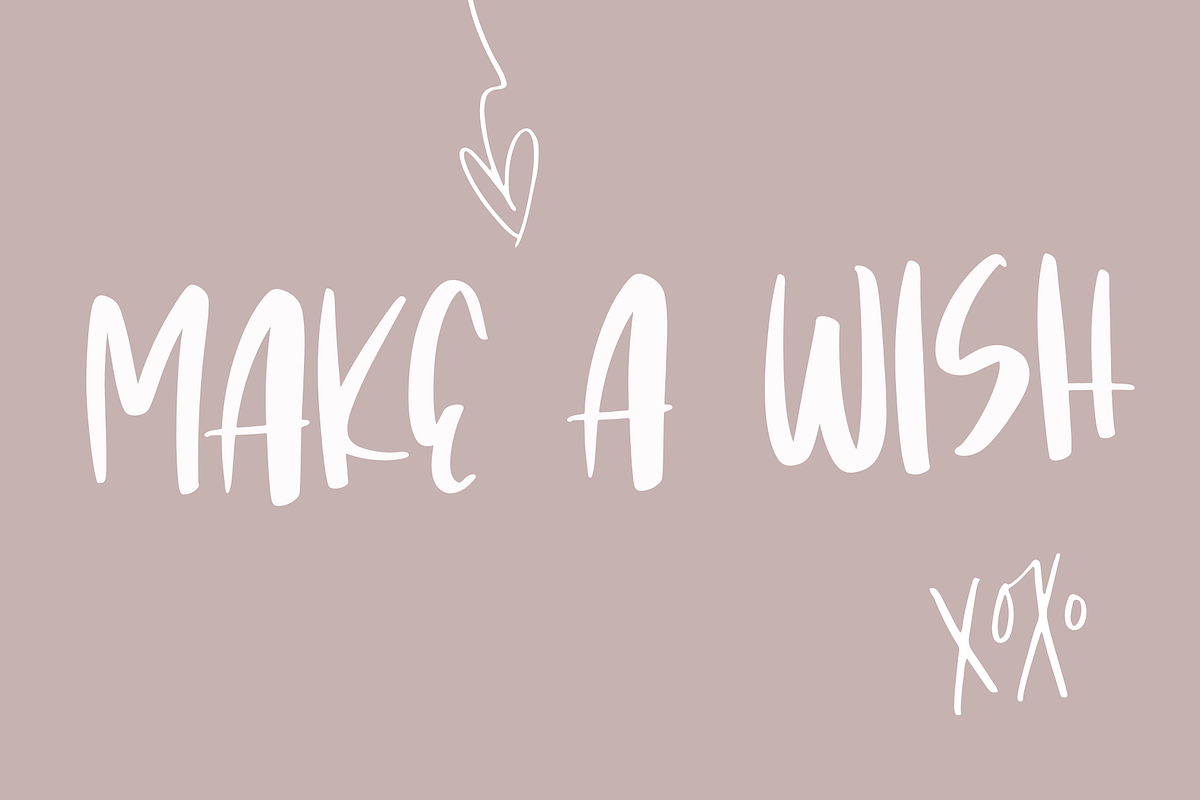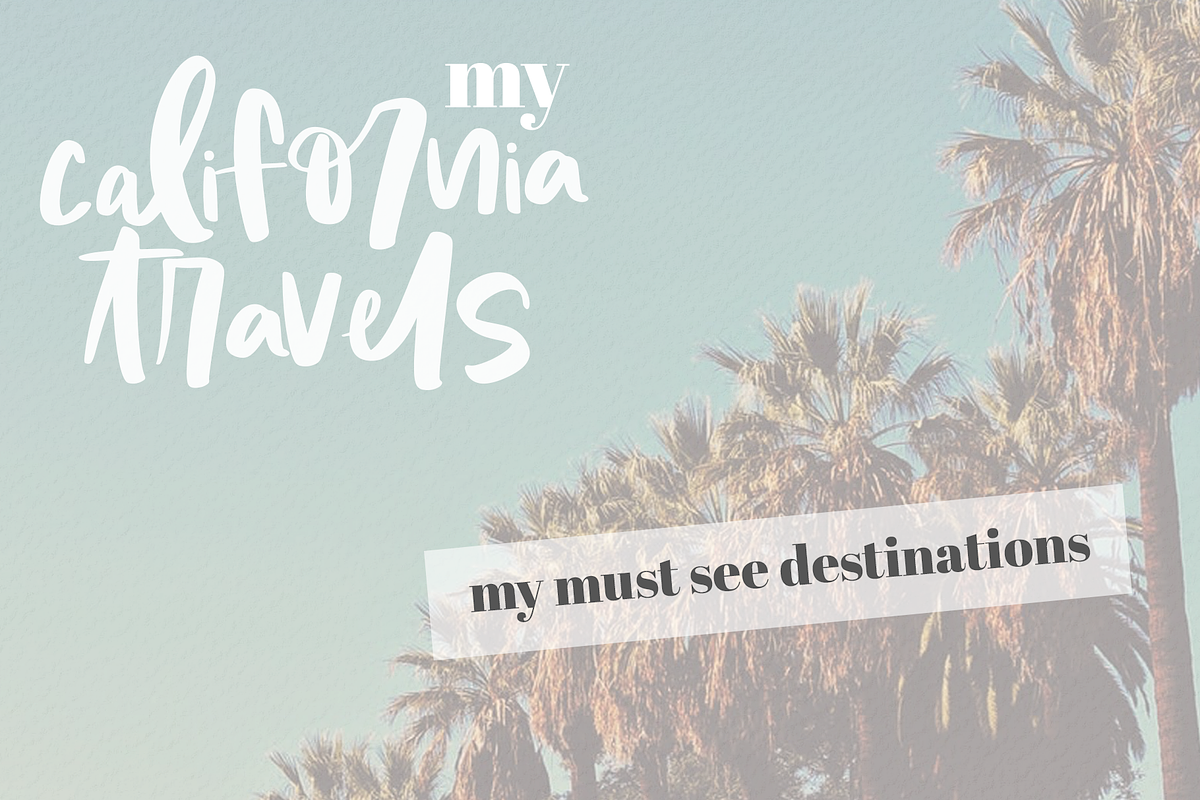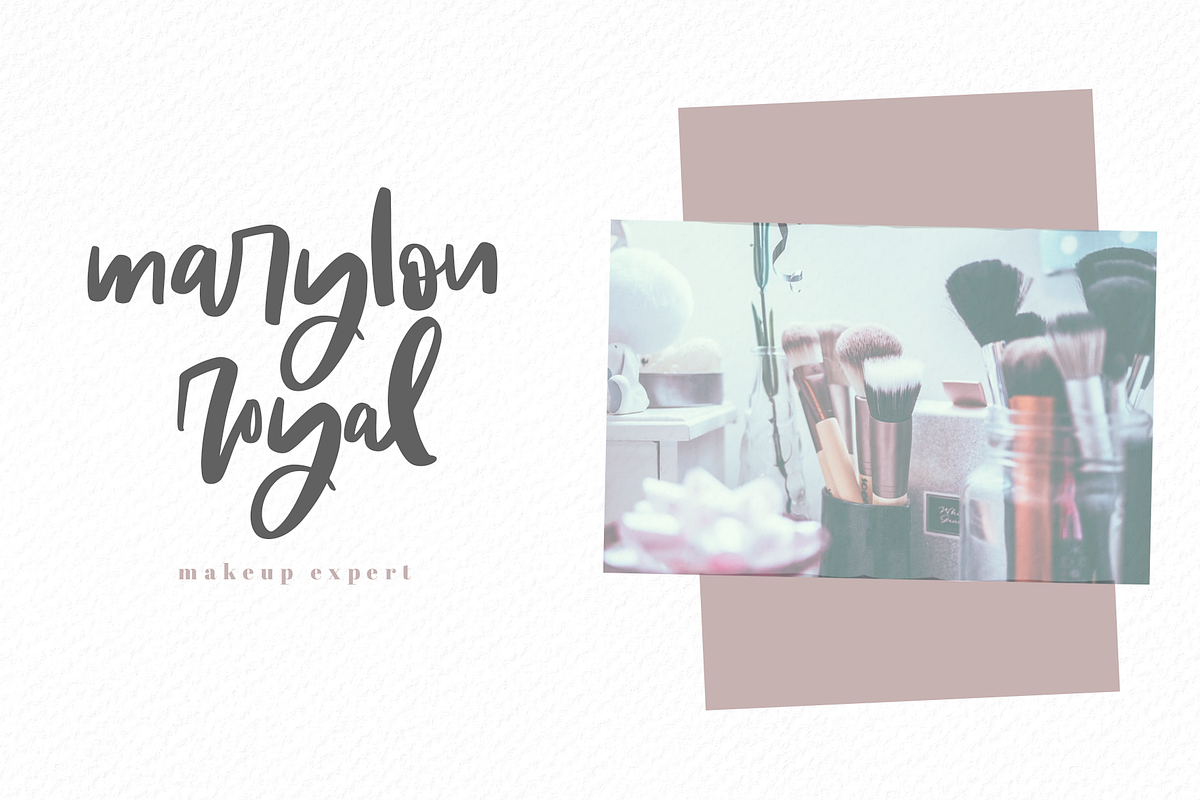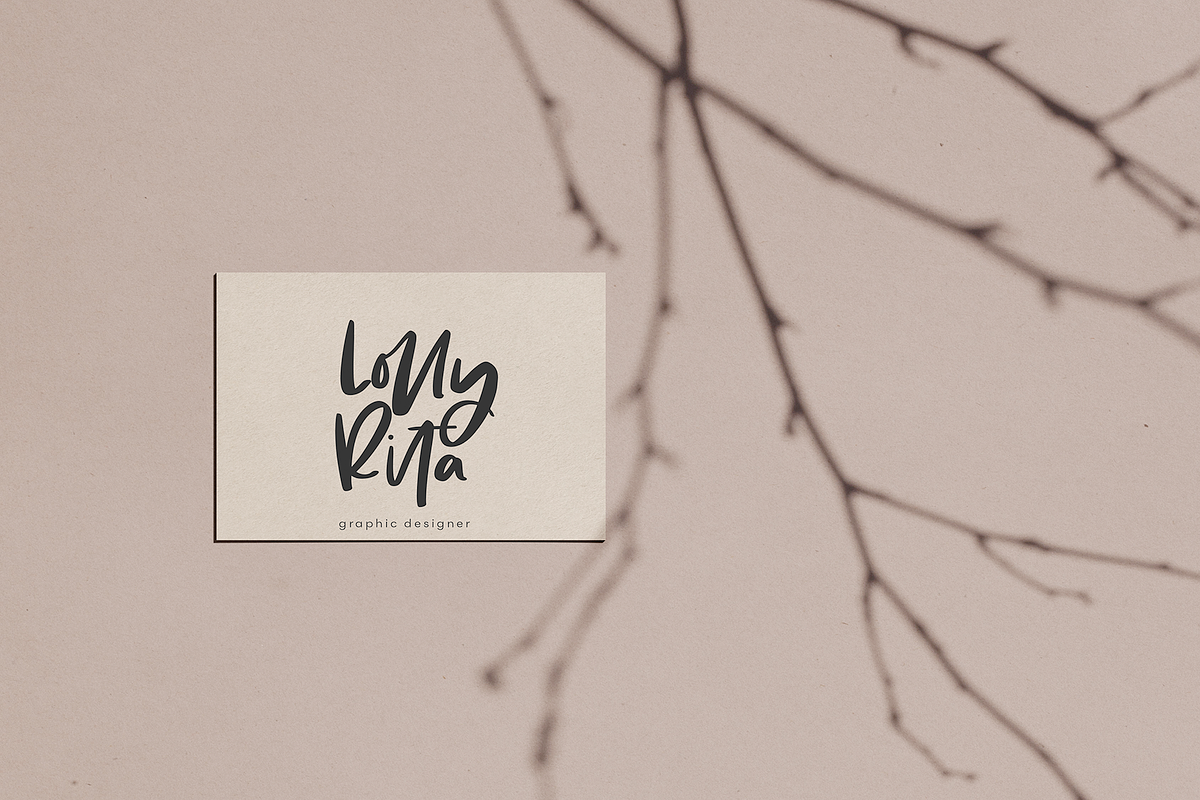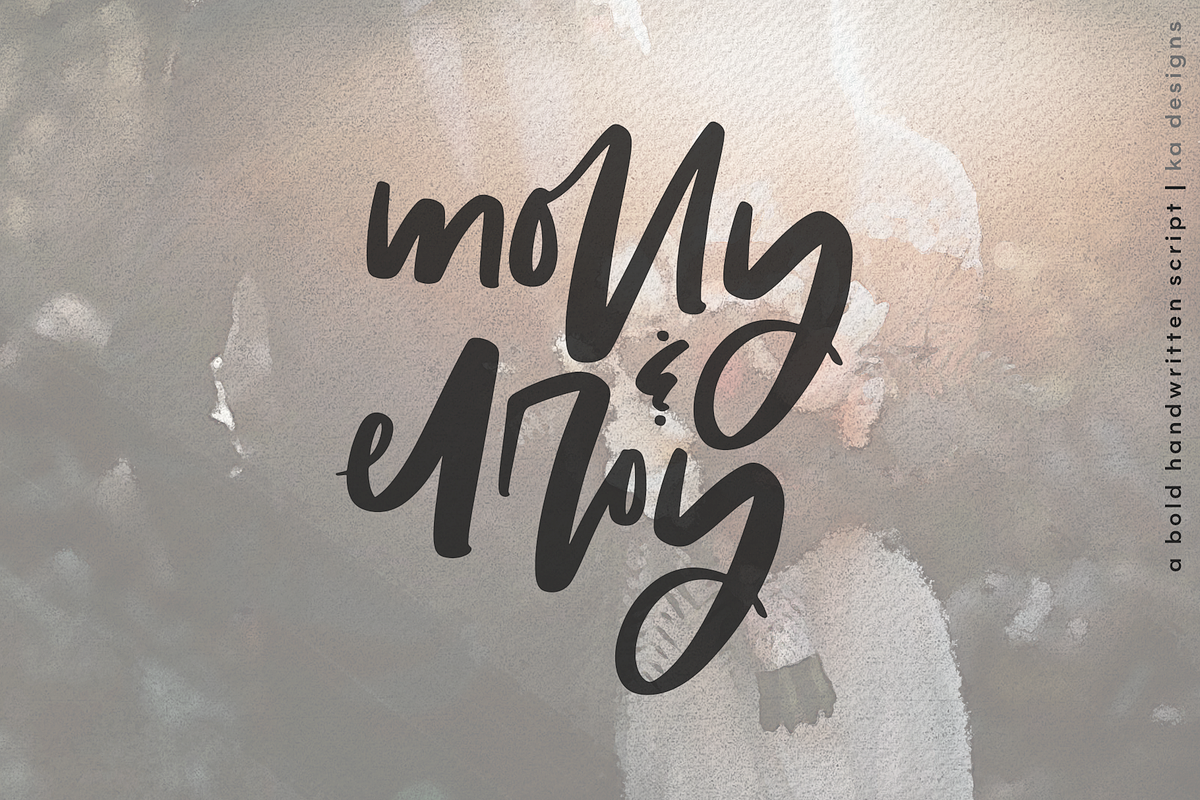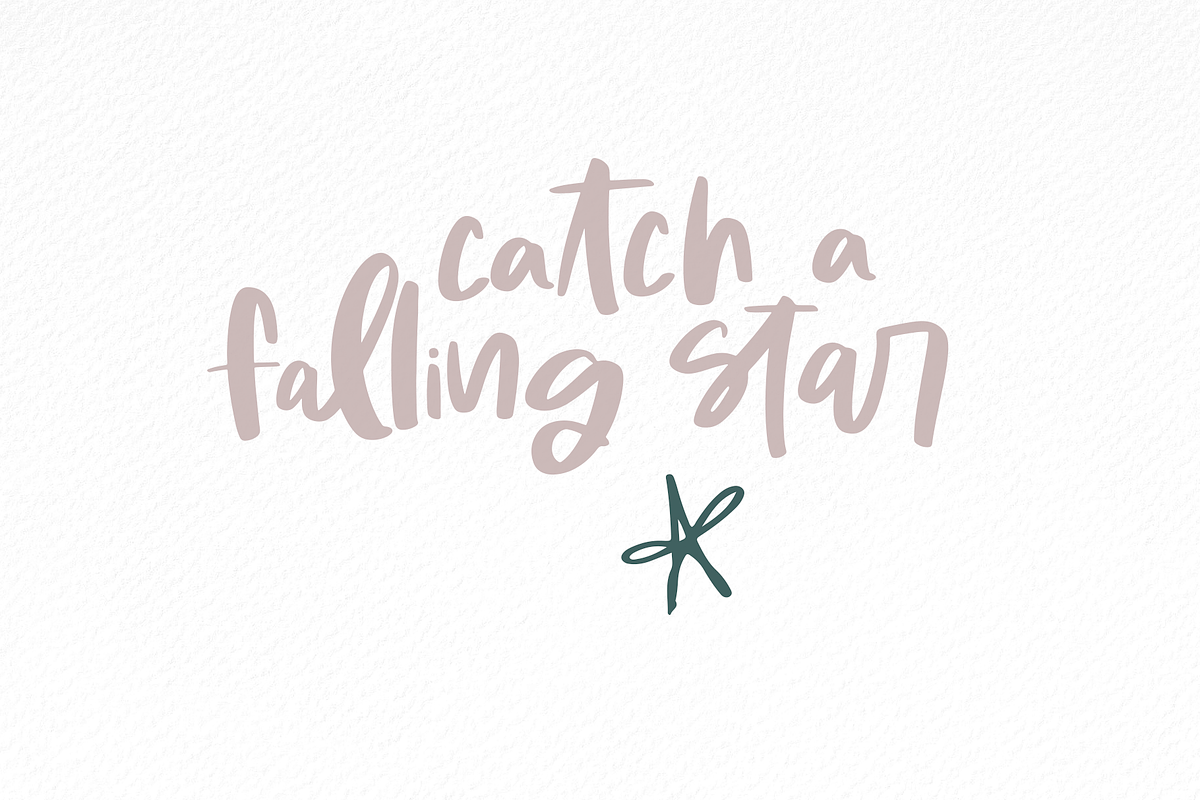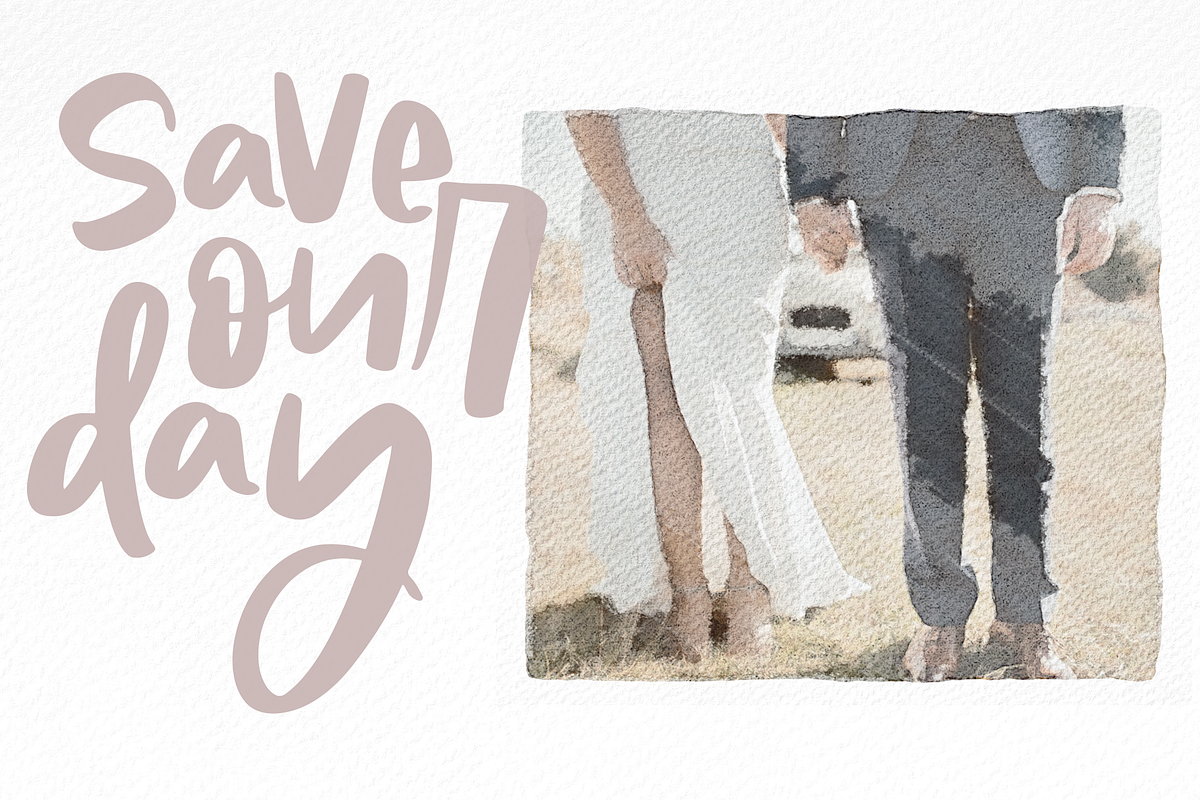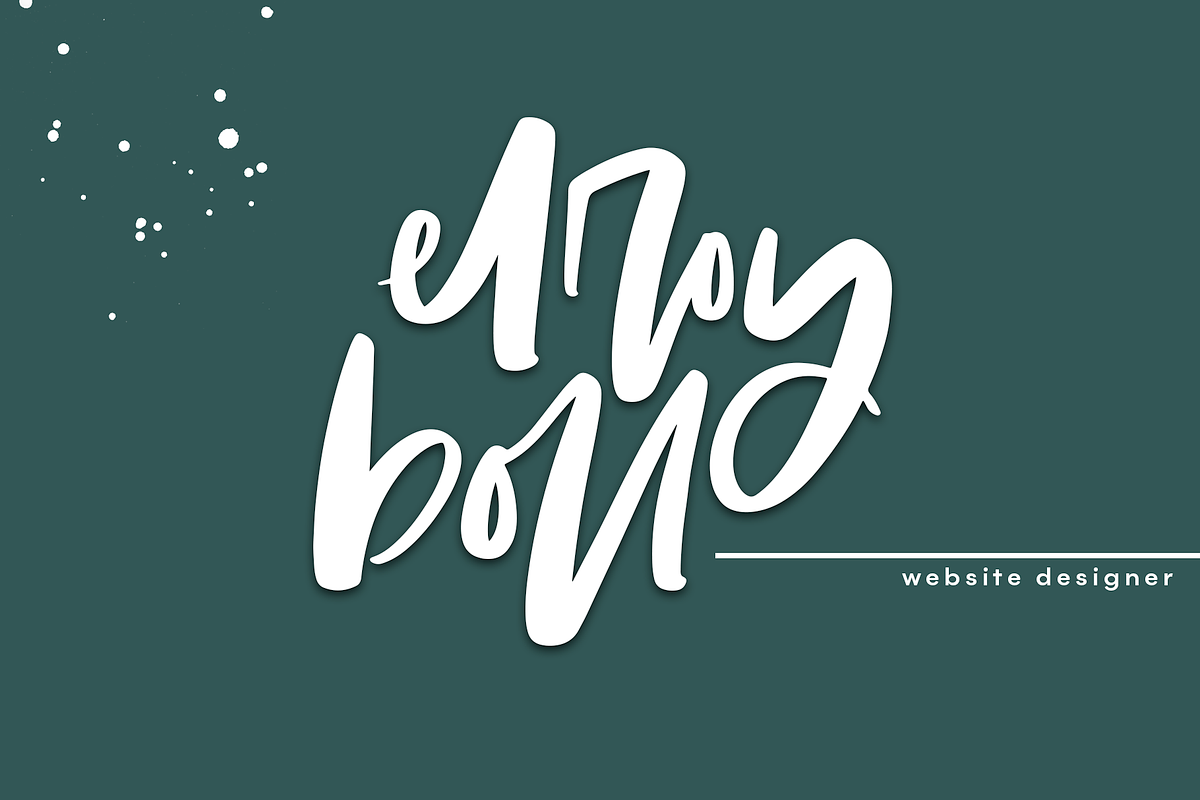
Molly & Elroy - Bold Script Font
Molly & Elroy is a bold handwritten script font.
This font is a mix of a lot of different letter styles. I wanted to make something different than the usual :)
This font is great for large print, branding, names, headings, blogs, logos, invitations and more!
This font does not include accent characters at this time.